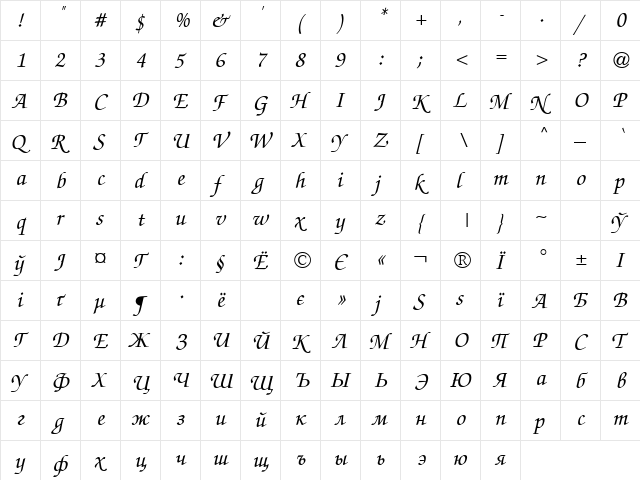
Zapf ChanceC Italic
Design Context for Zapf ChanceC Typeface
Zapf ChanceC is a composed and adaptable typeface that performs quietly and consistently across a wide range of design contexts. Its italic angle brings a sense of urgency and motion to the letterforms.
Pro Tip: Try Zapf ChanceC for annotation and caption copy alongside an upright companion — the contrast in angle creates a dynamic but ordered typographic system.